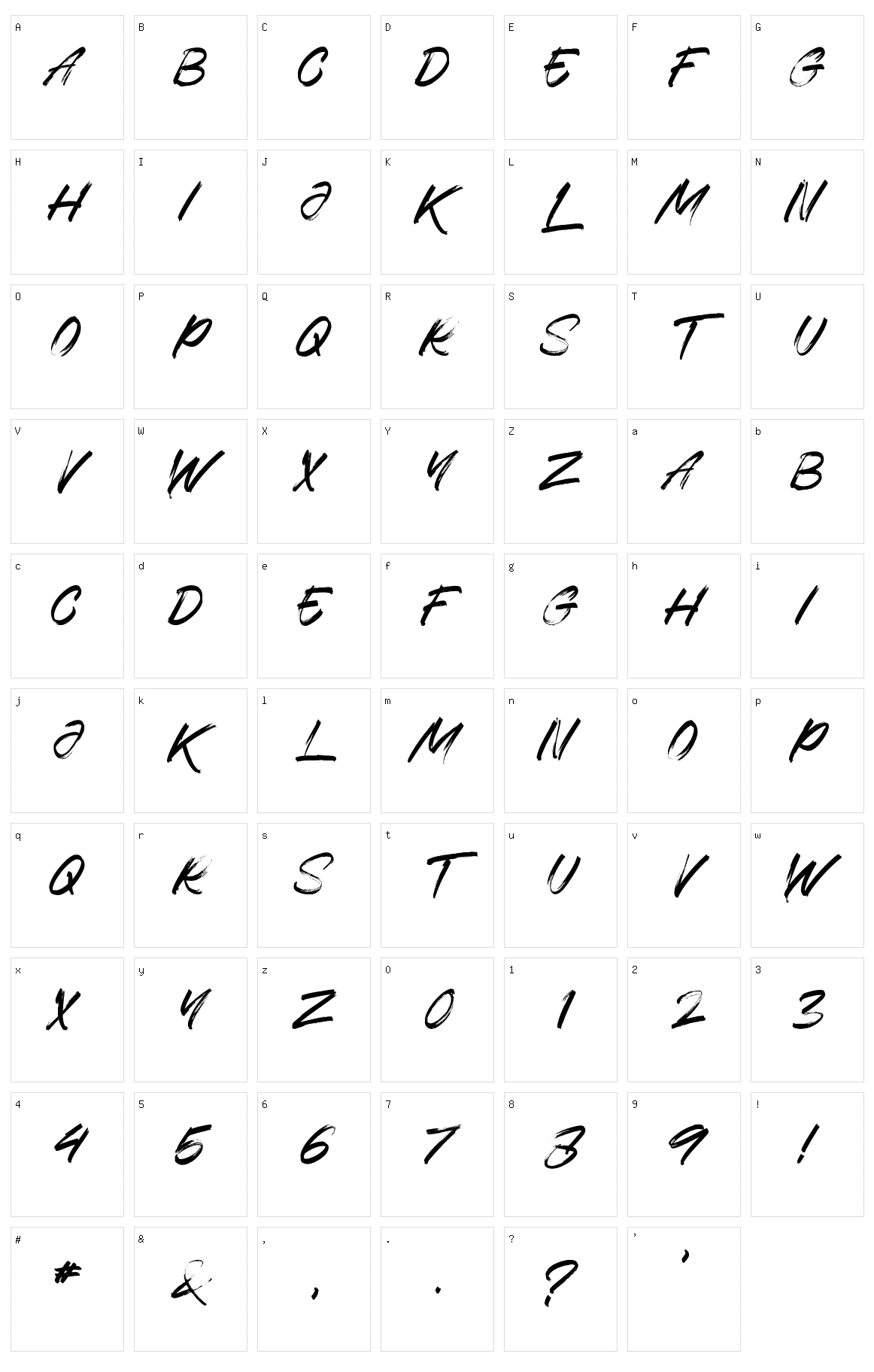
The free font Rhogsainel is carefully designed by Kotak Kuning Studio, showcasing a thoughtful balance of creativity and usability and falls under the Script font style. When you download the ZIP file, it contains only 157 KB of font files, making it lightweight and quick to download. Please review the license details below to understand permitted usage and distribution rights. If license information is not available, we recommend using this font for personal projects only or contacting the author directly for commercial usage permissions.